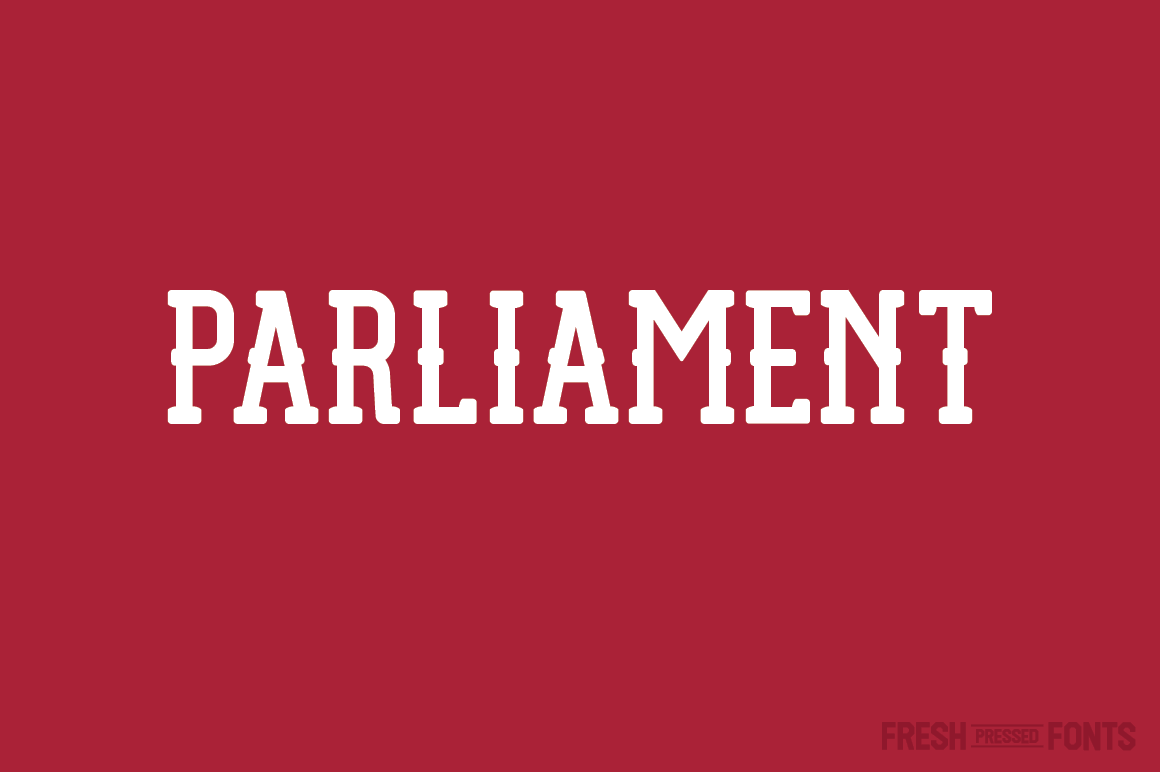
Parliament Font
Parliament is an elegant slab-serif typeface that comes in two styles, regular and outline. The font is meant to be strong and versatile, allowing you to utilize it in all your designs ranging from a restaurant menu to a lemonade stand sign to a wedding invitation.
Parliament comes with a full set of capitalized letters, numbers 1-9, and a collection of essential glyphs.